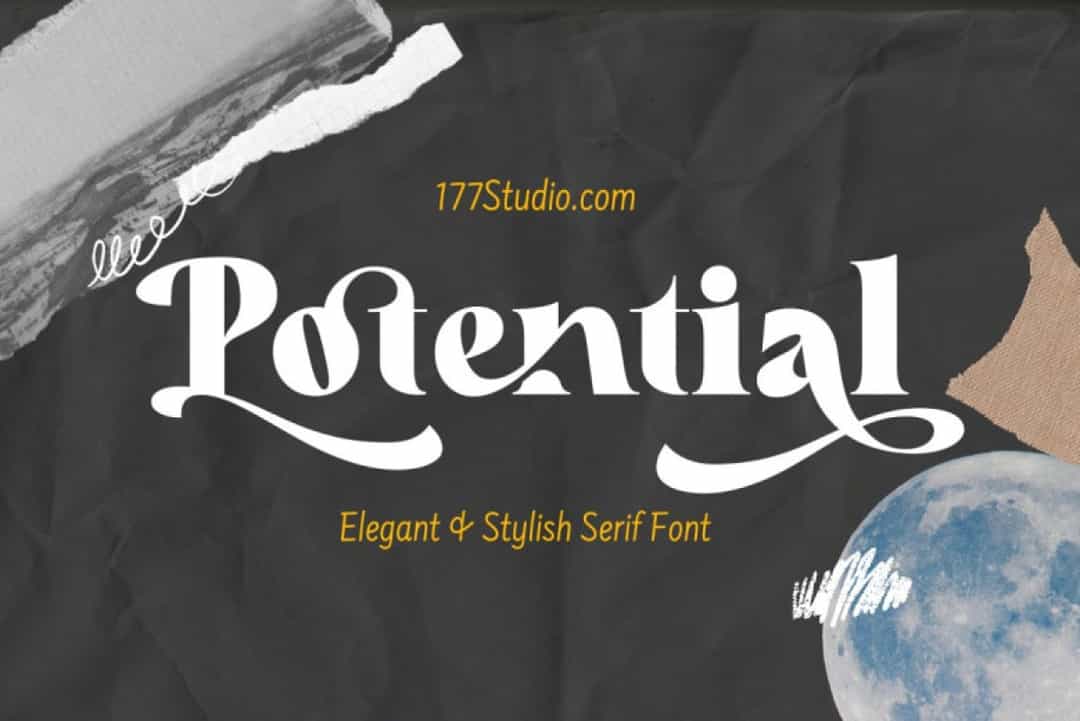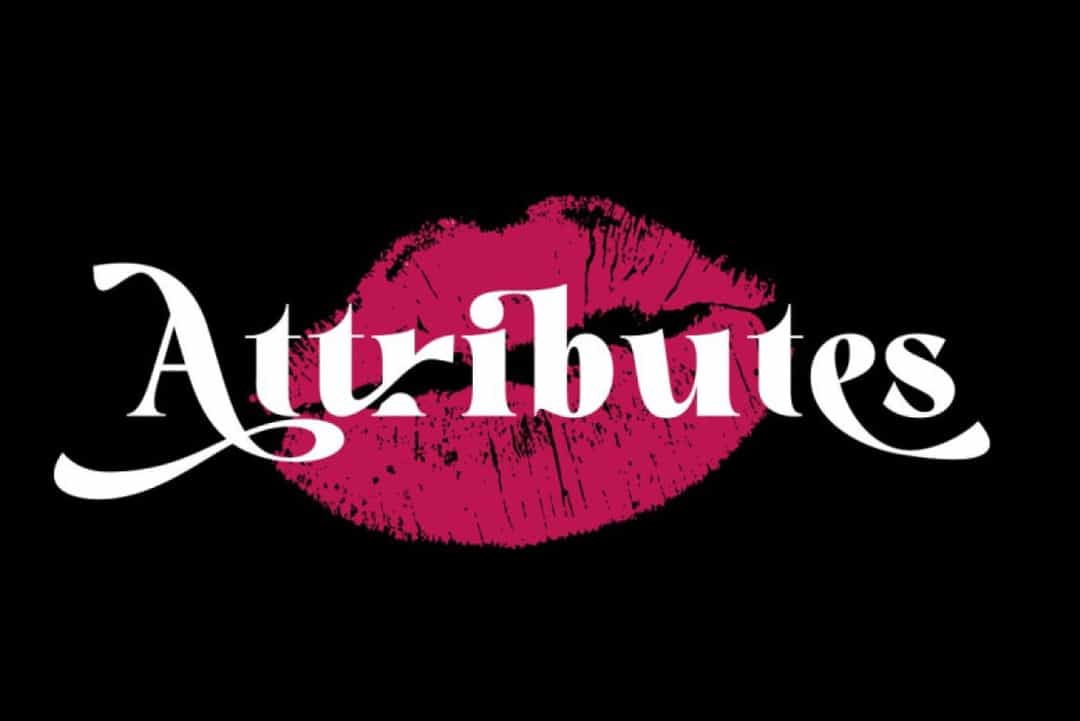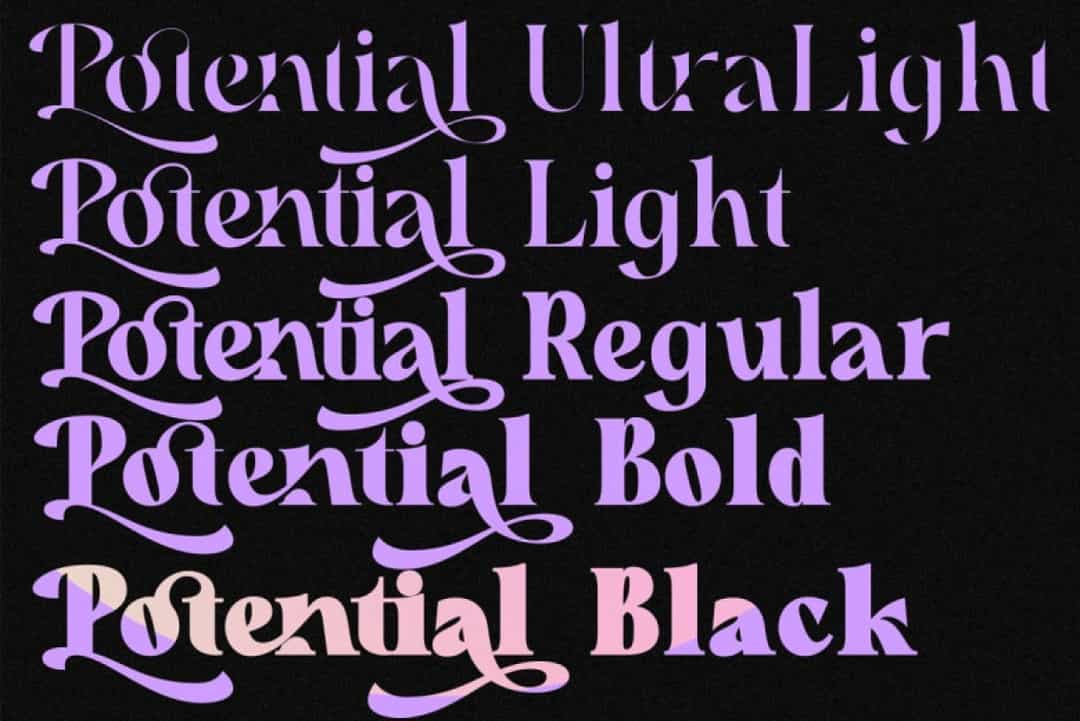
Potential is an elegant and luxurious serif typeface inspired by high-end serif typefaces. Modern, bold, retro round and modern serif font is designed for elegant projects such as branding, logo, packaging, header design, T-shirt designs, posters or music albums etc. Additionally, Potential’s thickness remains consistent across all of its glyphs for consistent appearance across your designs.